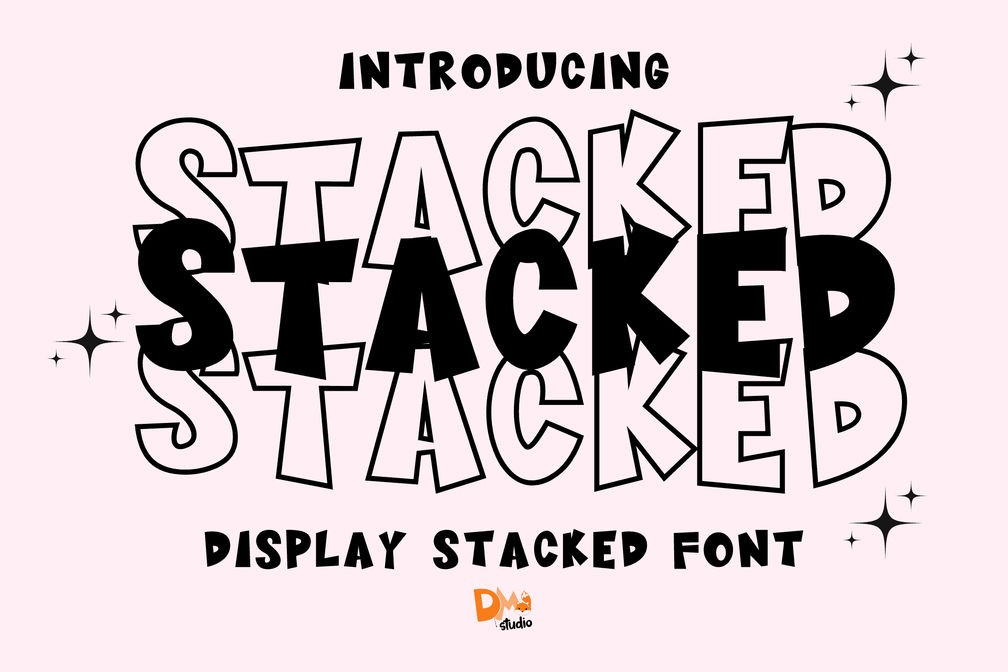
Display Stacked Font
Introducing Display Stacked Font – a bold, eye-catching typeface that creates a dynamic stacked effect with every letter. This playful, layered font brings energy and personality to your designs, making it perfect for posters, banners, logos, children’s books, and fun, creative projects. With its quirky and bold letterforms, the Display Stacked Font makes an impact whether used in headlines or artistic typography projects. This font is all about fun and creative expression, designed to stand out and grab attention!
• Bold, Stacked Letterforms: Perfect for creating fun, layered text effects that are full of personality.
• Ideal for Creative Projects: Great for posters, banners, logos, packaging, and more.
• Playful and Dynamic: Adds a quirky and energetic vibe to your designs.